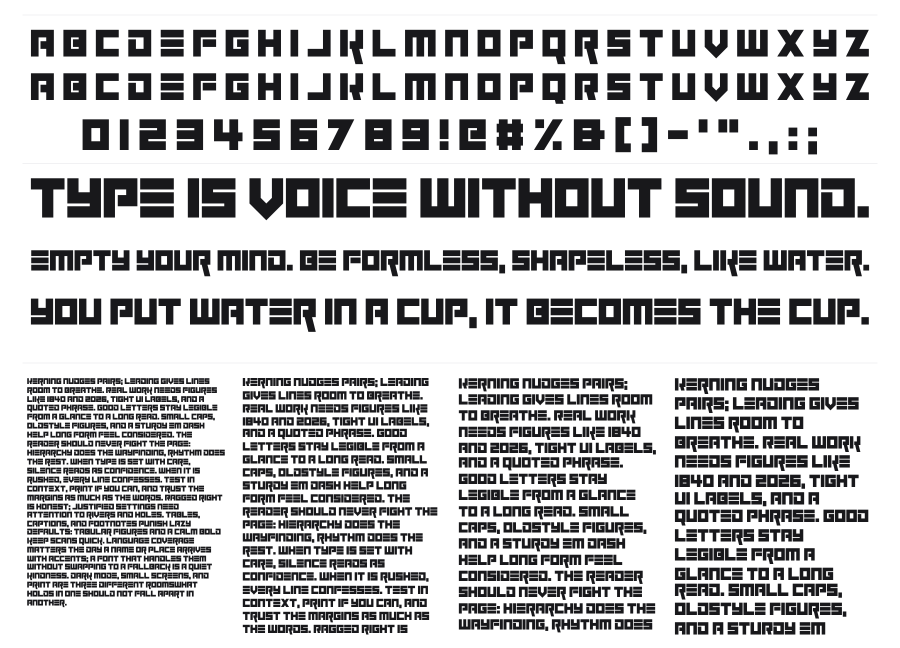
Elektronik
Elektronik is a heavy square geometric sans built from thick rectangular strokes and sharp right-angle corners with almost no stroke contrast. The blocky, modular construction gives it a mechanical density that reads immediately as electronic or industrial. Strong territory for gaming titles, tech branding, and any headline that needs to feel like it was assembled from circuit boards.